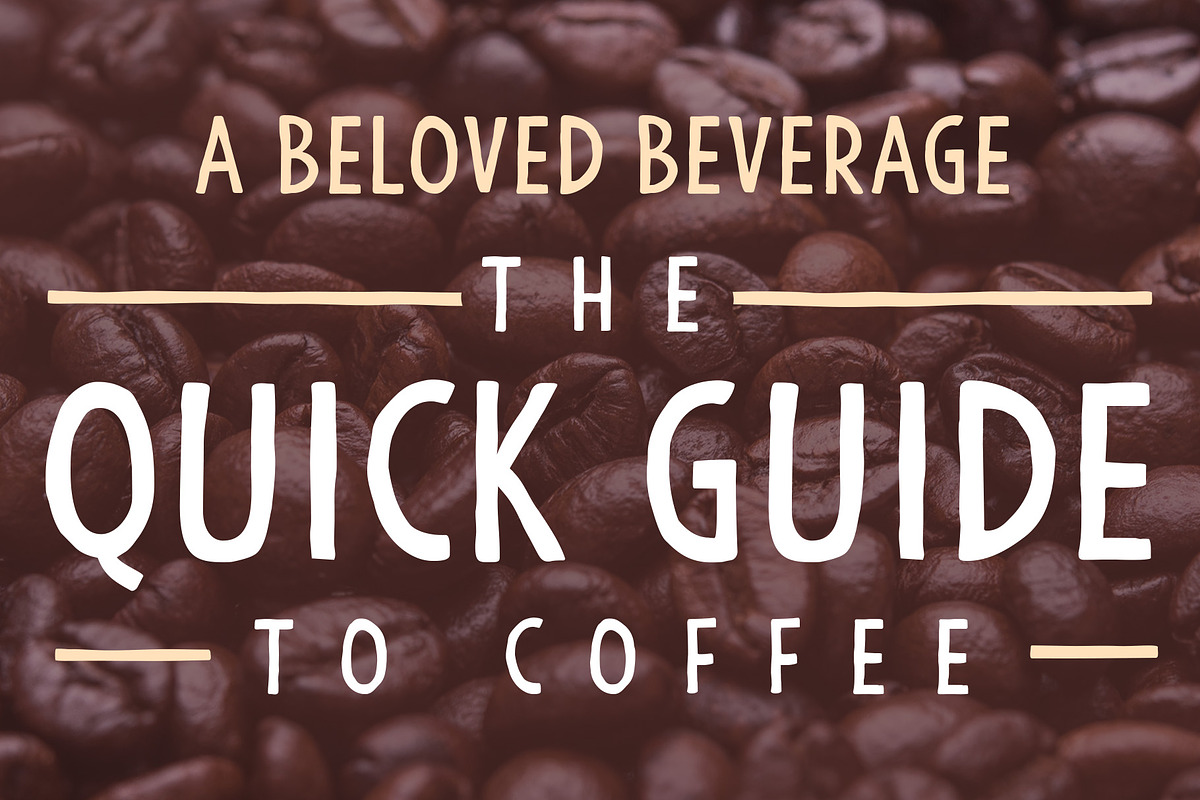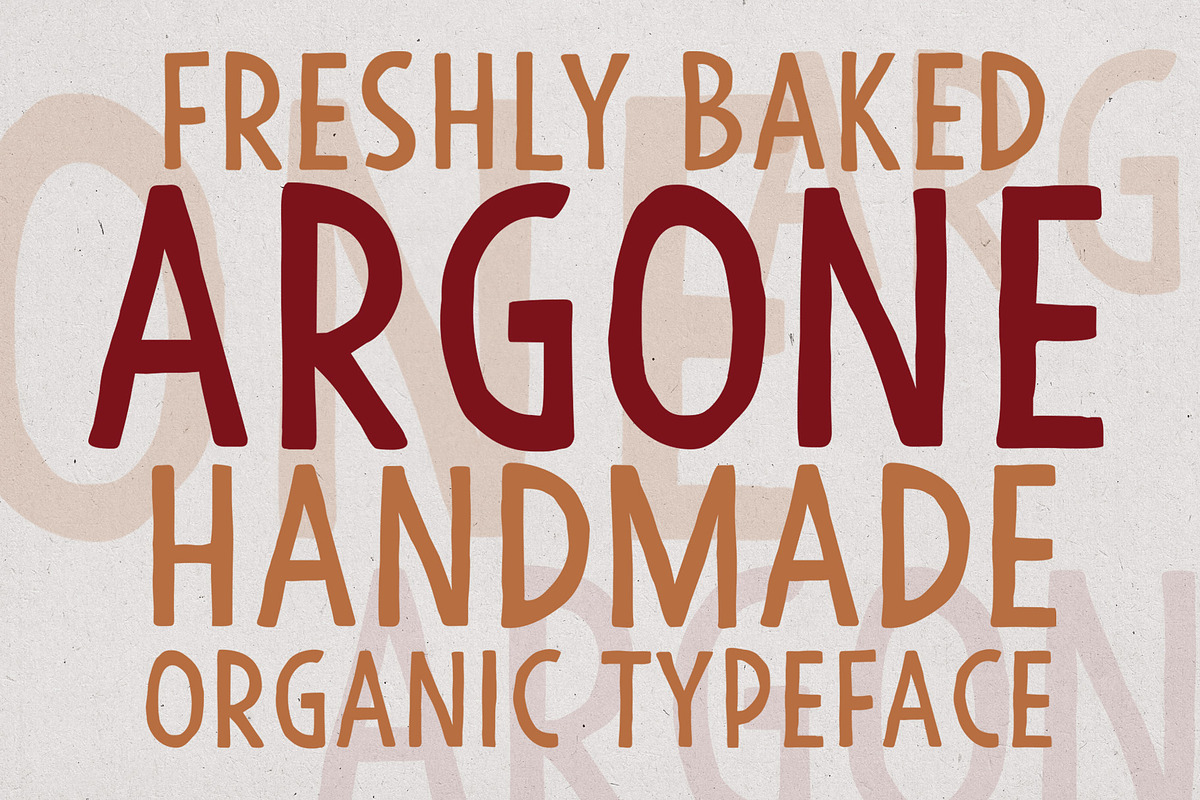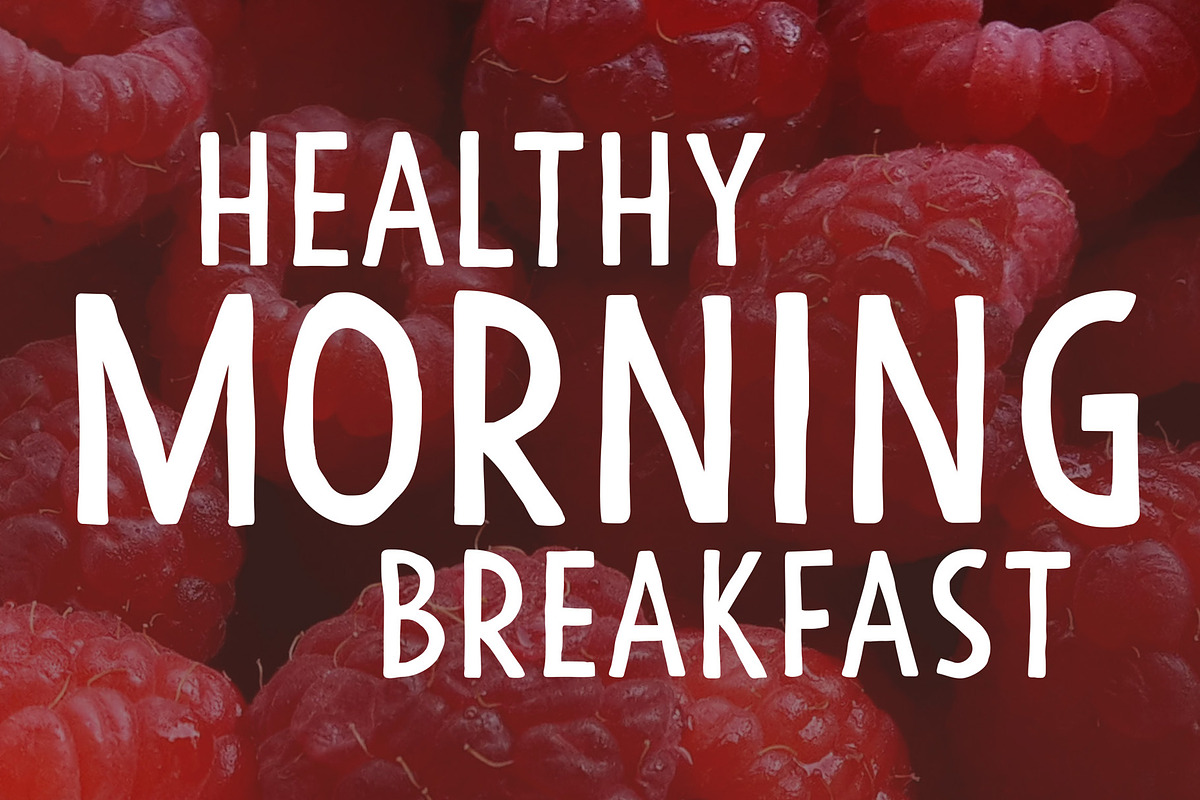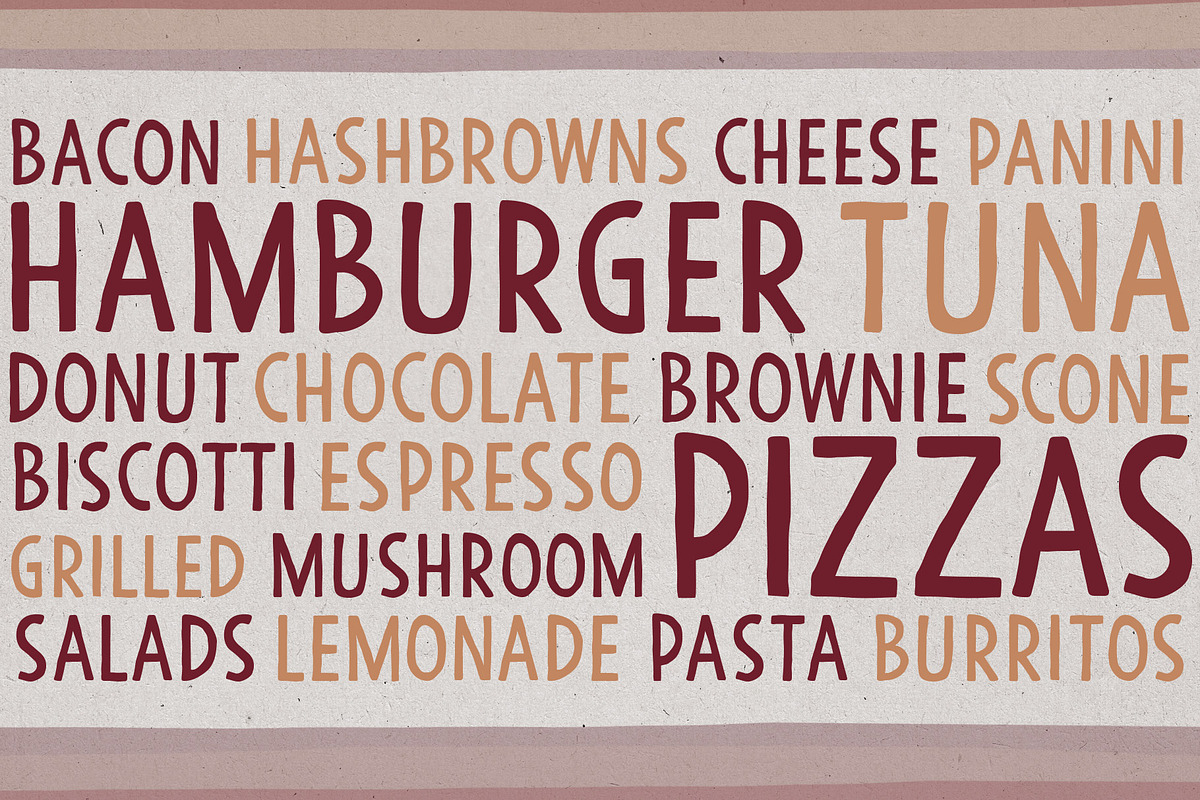
Argone font
Argone is a handmade display typeface, especially suited for communication that requires an organic, fresh and friendly feel to it.
Why Argone font is worth a look
Argone font by GraphiteStudios fits naturally into Branding, posters, packaging, typography.